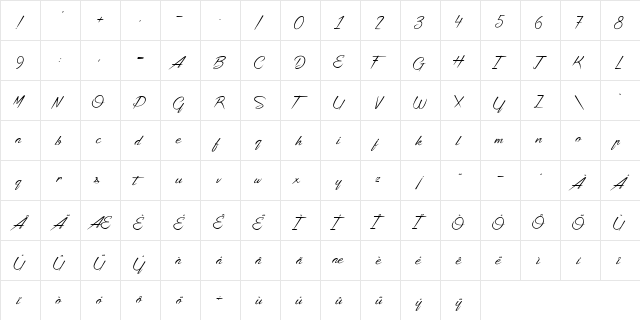
Strike your Path Regular
| Foundry | Maelle.K |
| Designer | Cat.B |
Design Context for Strike your Path Typeface
Strike your Path is a composed and adaptable typeface that performs quietly and consistently across a wide range of design contexts.